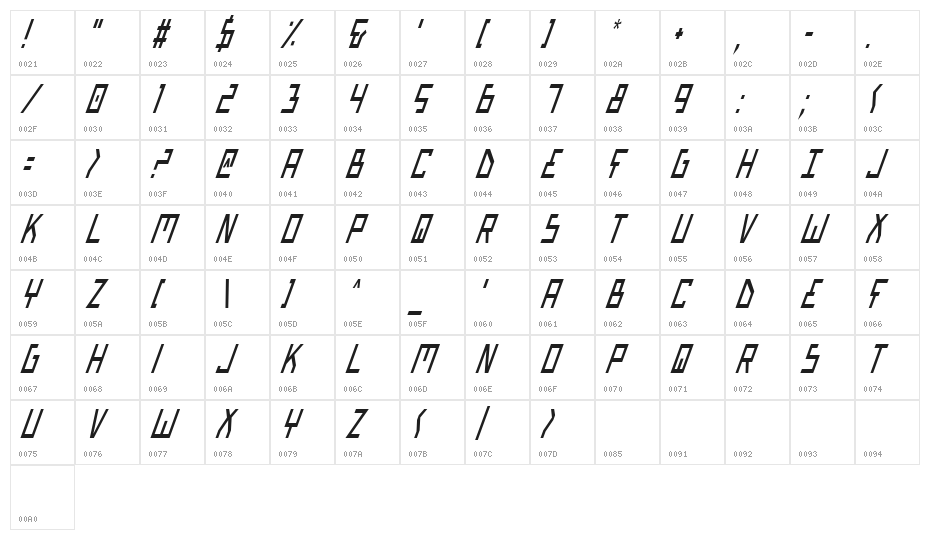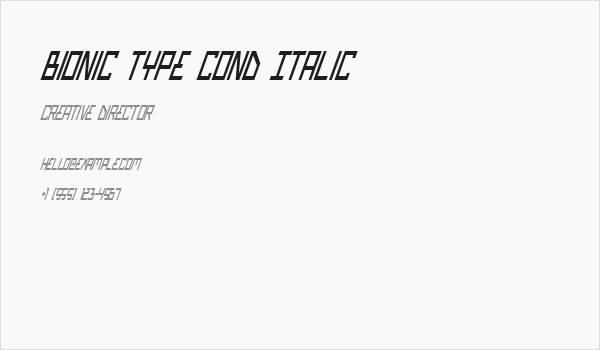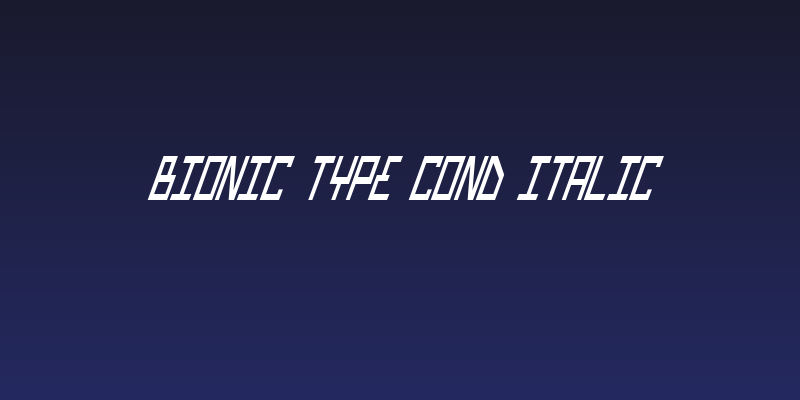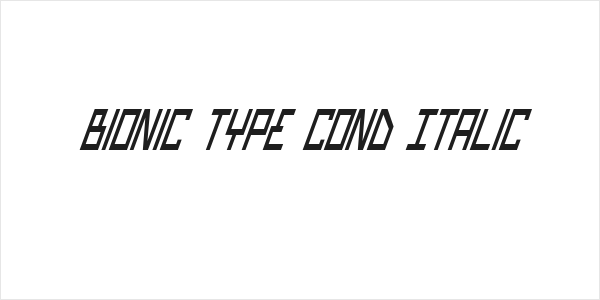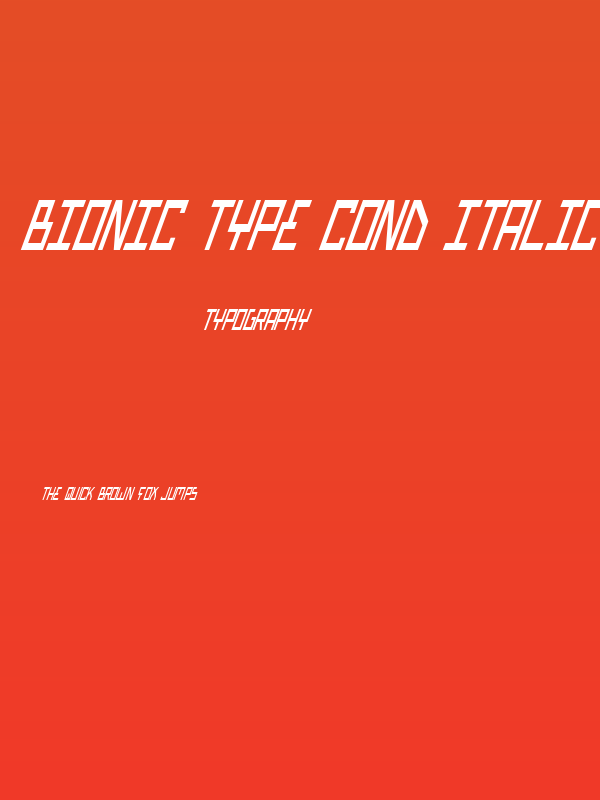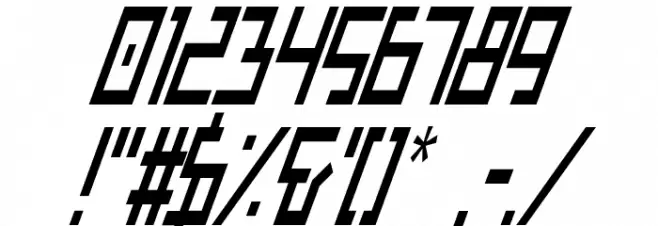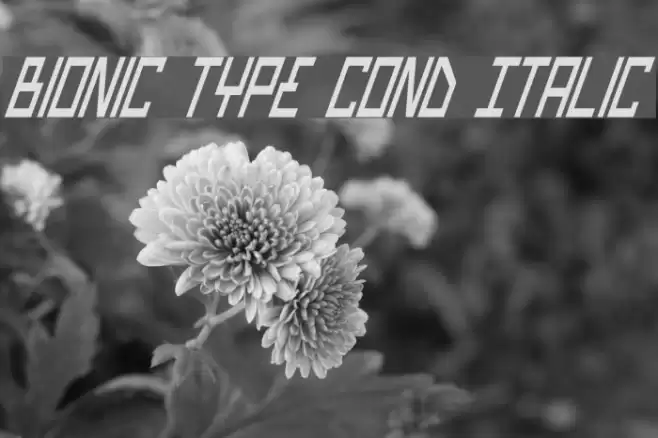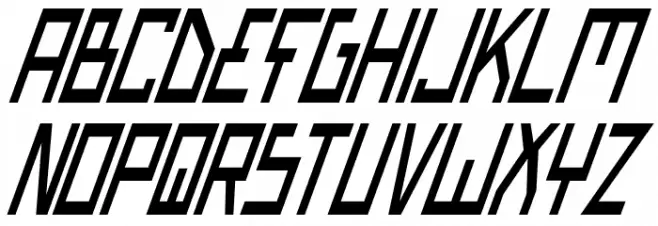
Bionic Type Cond Italic Font
Bionic Type Cond Italic Description
This font features a futuristic and angular design, characterized by its sharp edges and italicized form. The letters are condensed, giving a sleek and modern appearance. The geometric shapes and slanted orientation suggest movement and speed, making it ideal for dynamic and tech-oriented projects. The uppercase and lowercase letters maintain a consistent style, with numerals and special characters following the same angular theme. The font's bold strokes and condensed width create a striking visual impact, suitable for attention-grabbing designs.
| Proposed Projects | Ideal for tech branding, sci-fi posters, video game titles, and futuristic product packaging. |